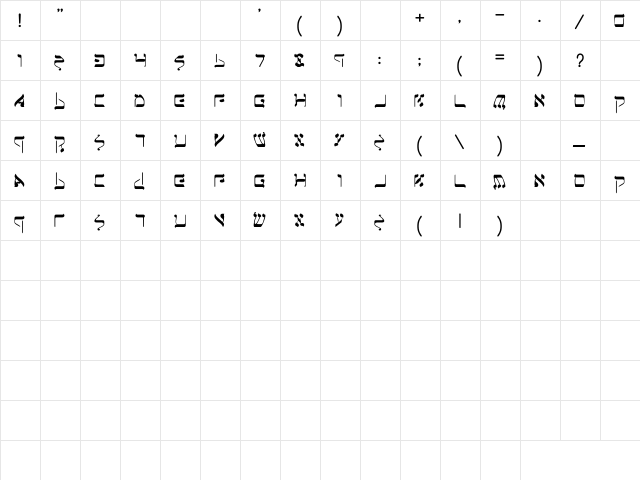
Jerusalem Regular
Design Context for Jerusalem Typeface
Jerusalem takes a measured approach to typography — its balanced proportions and neutral character make it a reliable workhorse for both digital and print work.